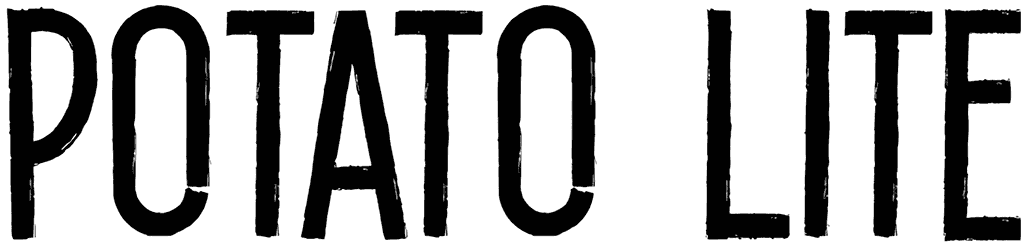
Potato Lite Font
Potato Lite is a magical blend of creativity and a casual sans serif font that leads to an all-caps eroded font that comes with a sense of simplicity, minimalistic, dynamism, and professionalism. If you are in trouble with designing product packaging, labels, book covers, brochures, and flyers, we offer to try it and notice how it levels up your content.